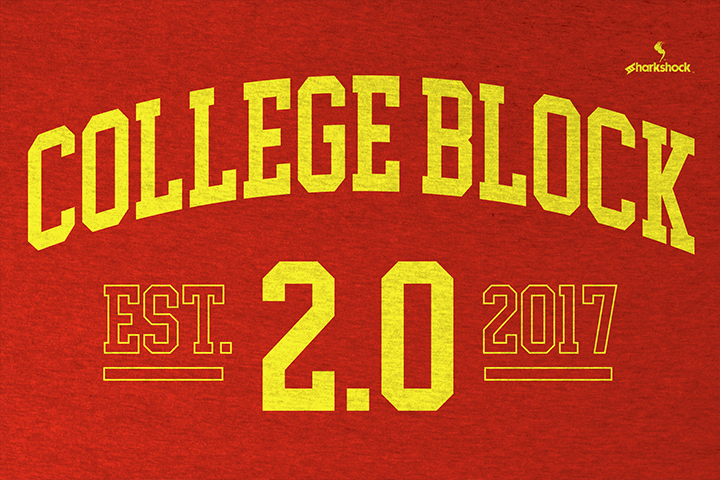
Preview and download College Block 2.0 Font. Created by Sharkshock in Fancy Old School styles with Demo license.
OTF: College Block 2.0 (Regular and Outlines) Dennis Ludlow 2017 all rights reserved by Sharkshock dennis@sharkshock.net College Block has been revamped and joins the 2.0 class. The letters are about 30% taller, just waiting to be arched and thrown on a University sweater. Several of them, along with European accents have been redesigned completely. Cyrillic makes its way into this font along with many other diacritics for international support. Use College Block 2.0 for a t-shirt, logo, or web graphics. The demo includes basic Latin, numbers, limited punctuation, and limited kerning. The complete family featuring both versions can be purchased for $30 via PayPal or by acquiring a commercial license. Do note that this $30 is for personal use only. Please email me or visit www.sharkshock.net/license for more information on licensing. Thank you for your support! visit www.sharkshock.net for more and take a bite out of BORING design! |